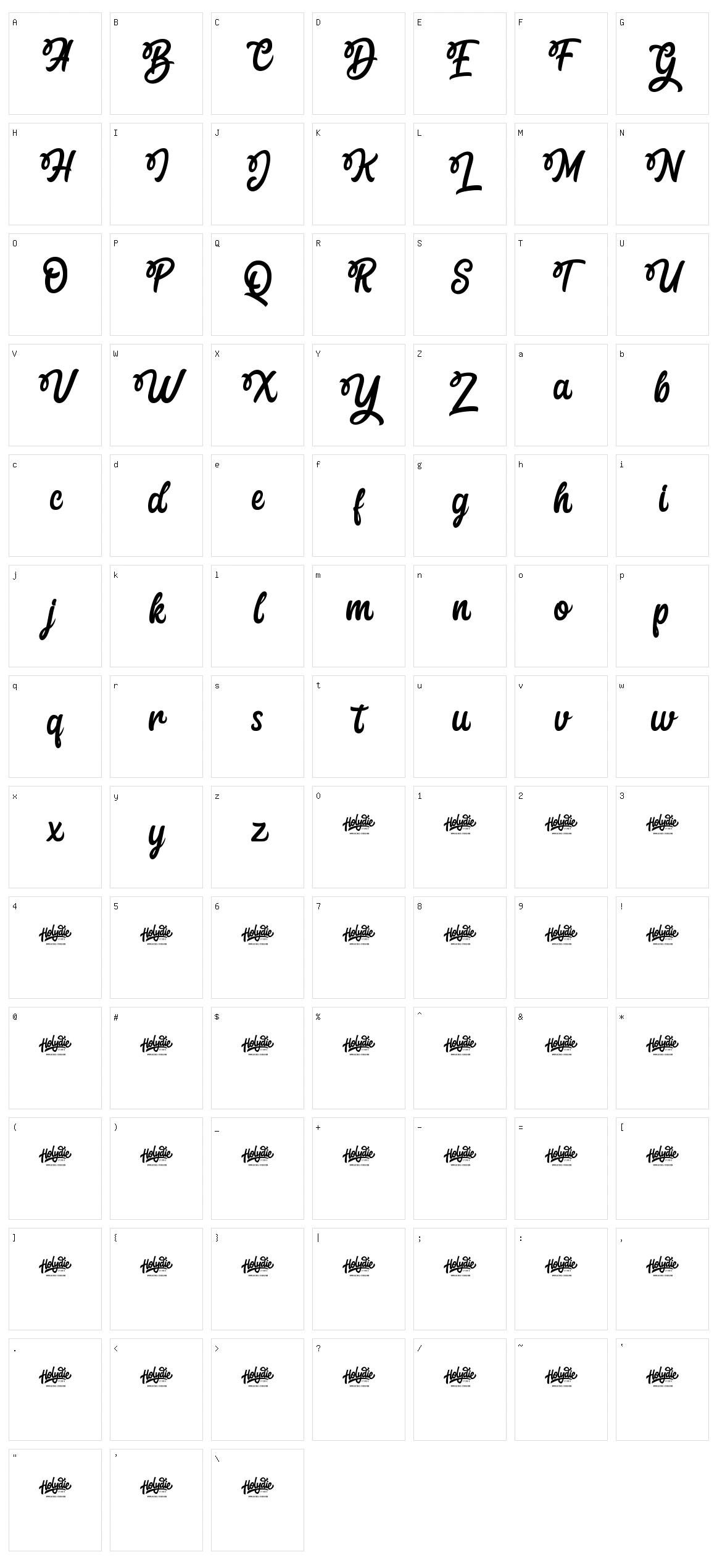
The free font Hellosty Blast is carefully designed by Holydie Studio, showcasing a thoughtful balance of creativity and usability and falls under the Script font style. When you download the ZIP file, it contains only 16.17 KB of font files, making it lightweight and quick to download. Please review the license details below to understand permitted usage and distribution rights. If license information is not available, we recommend using this font for personal projects only or contacting the author directly for commercial usage permissions.